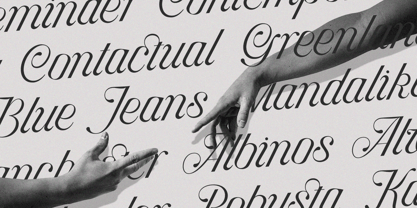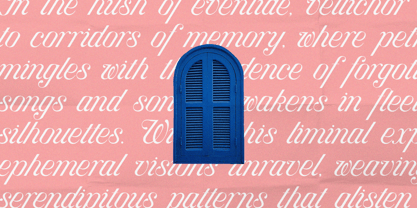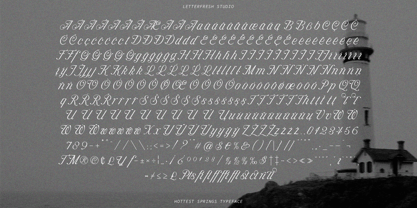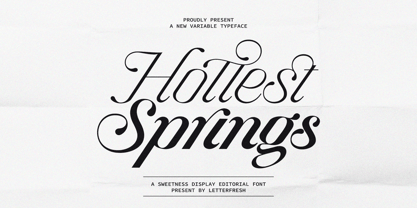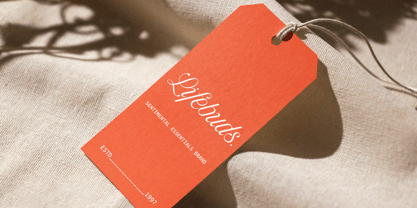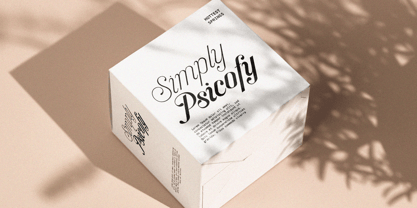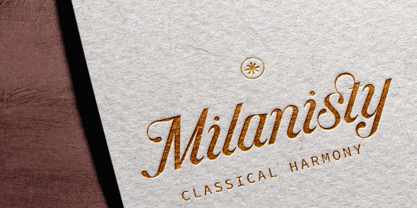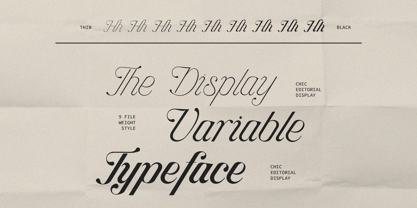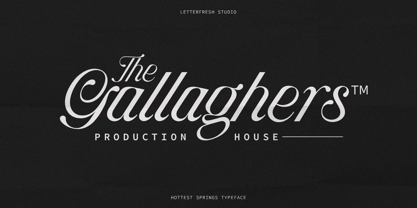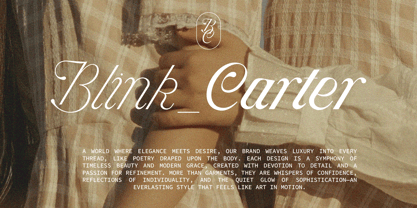
Hottest Springs Variable Pro
by Letterfreshstudio
The Hottest Springs Variable Pro Font Family was designed by Rizki Andika and published by Letterfreshstudio. Hottest Springs Variable Pro contains 10 styles and family package options. More about this family
Introducing Hottest Springs Script Variable Pro, a new curve that carefully crafted and balanced script typefaces with personality. You can use it as a logo, badge, emblem, packaging, title, poster, t-shirt/clothing, greeting card, wedding invitation, etc. Flowing characters are ideal for creating engaging messages. Mix and match Hottest Springs Script Variable Pro with a set of weights to suit your project. The alternative characters in this font are divided into several OpenType features such as Stylistic Alternates, Stylistic Sets, and Ligature.
Designers: Rizki Andika
Foundry: Letterfreshstudio